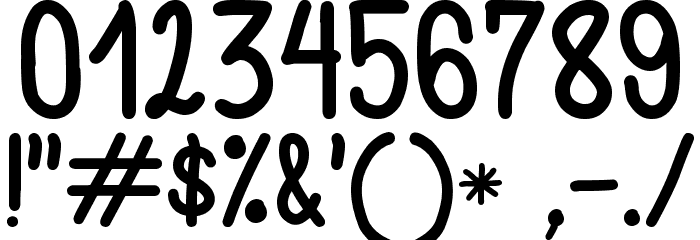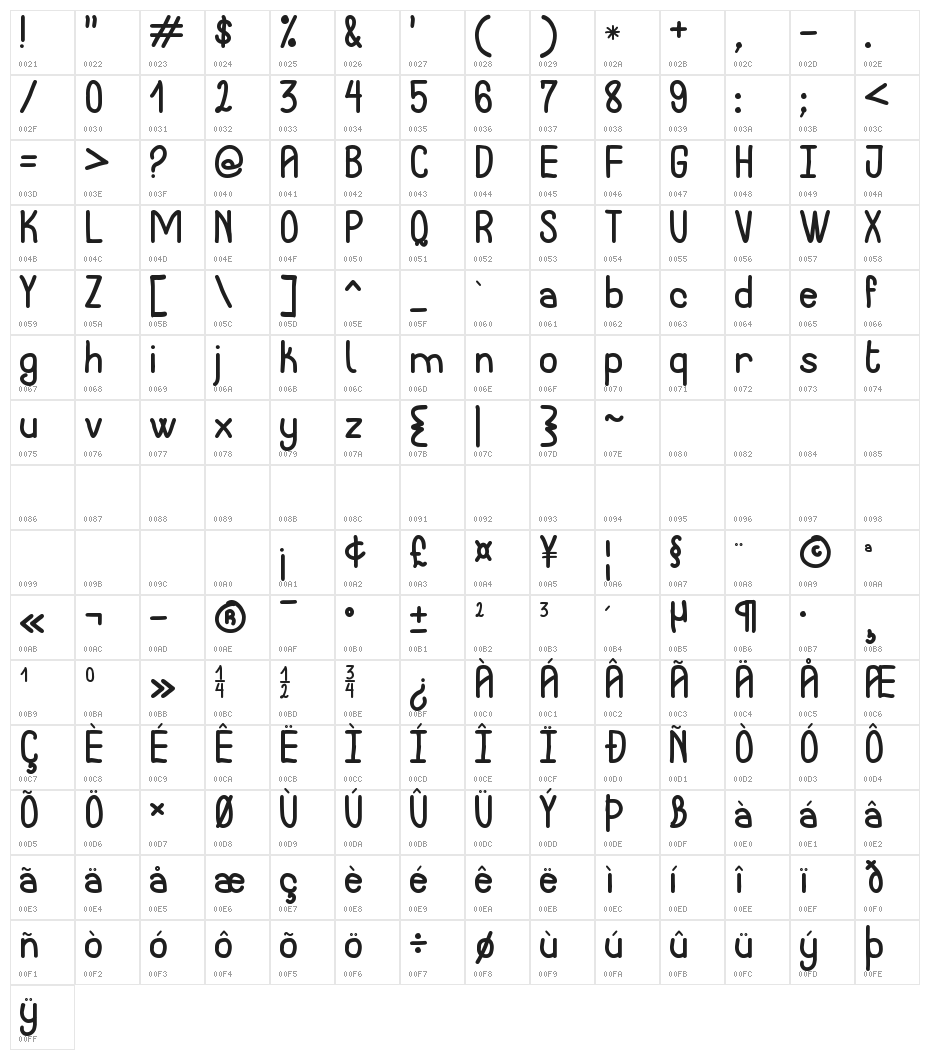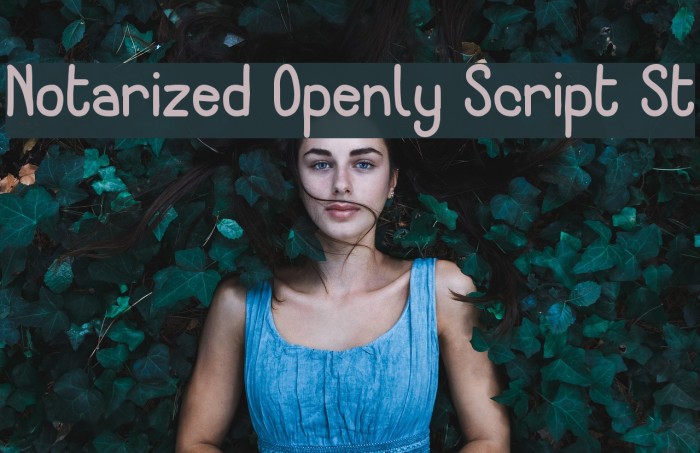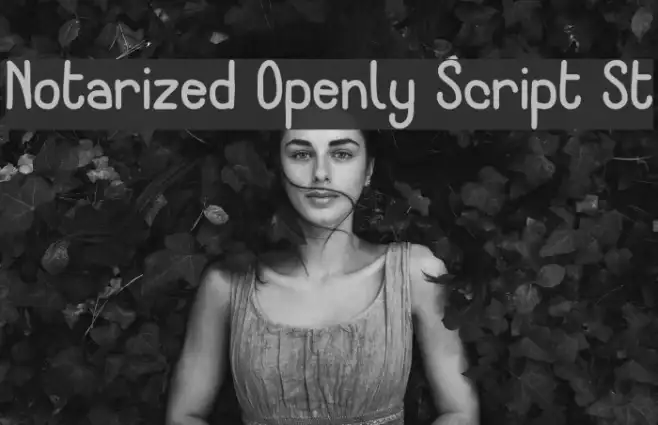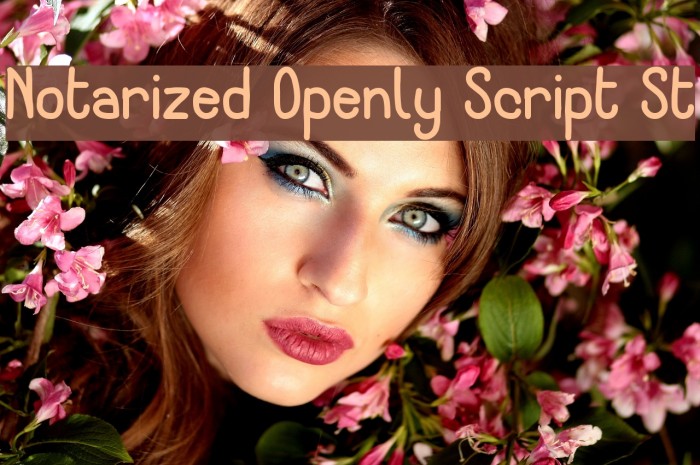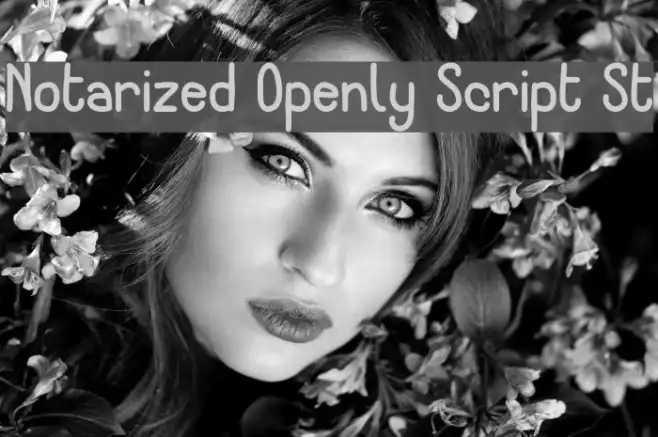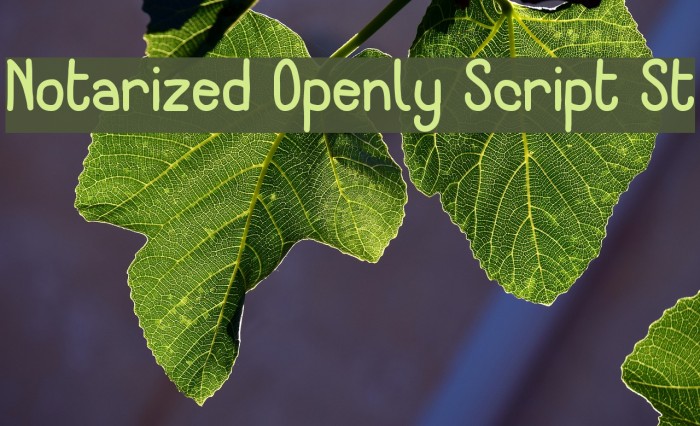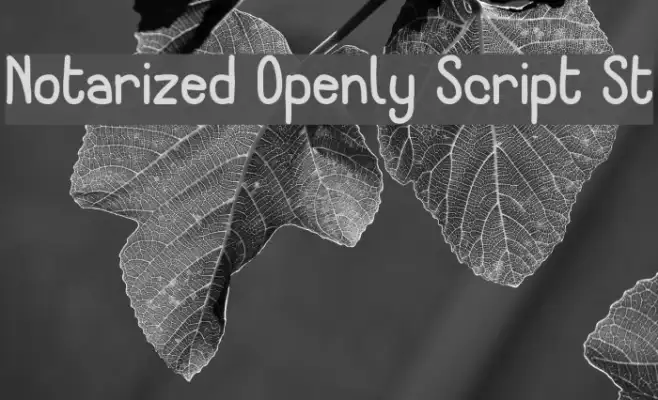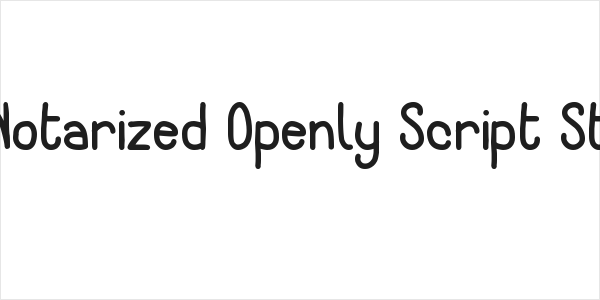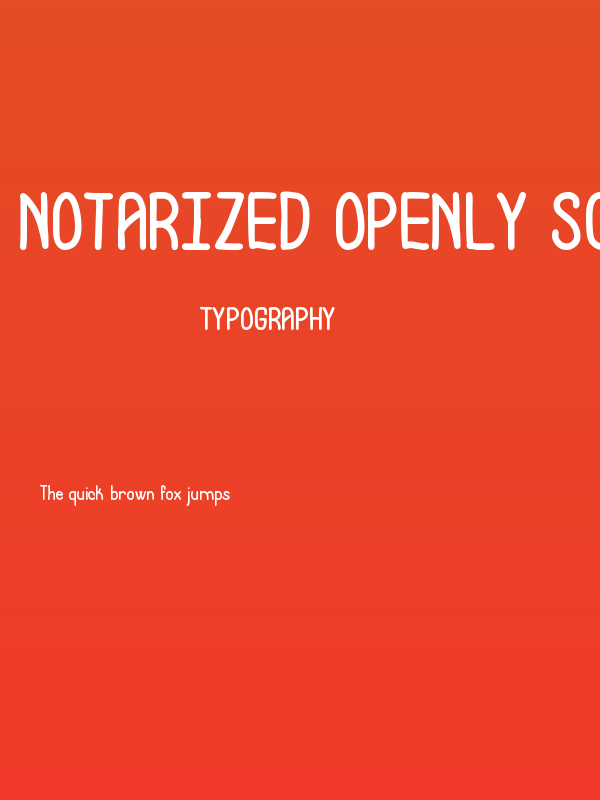
Notarized Openly Script St Font
Notarized Openly Script St Description
This playful and whimsical font features a handwritten style with rounded edges and a casual, friendly appearance. The characters are slightly irregular, adding a touch of charm and personality. The uppercase and lowercase letters maintain a consistent flow, while the numbers and special characters complement the overall design. This font is perfect for projects that require a personal touch, such as invitations, greeting cards, or children's books. Its unique style makes it stand out, while still being legible and versatile.
| Proposed Projects | Ideal for invitations, greeting cards, children's books, and playful branding. |